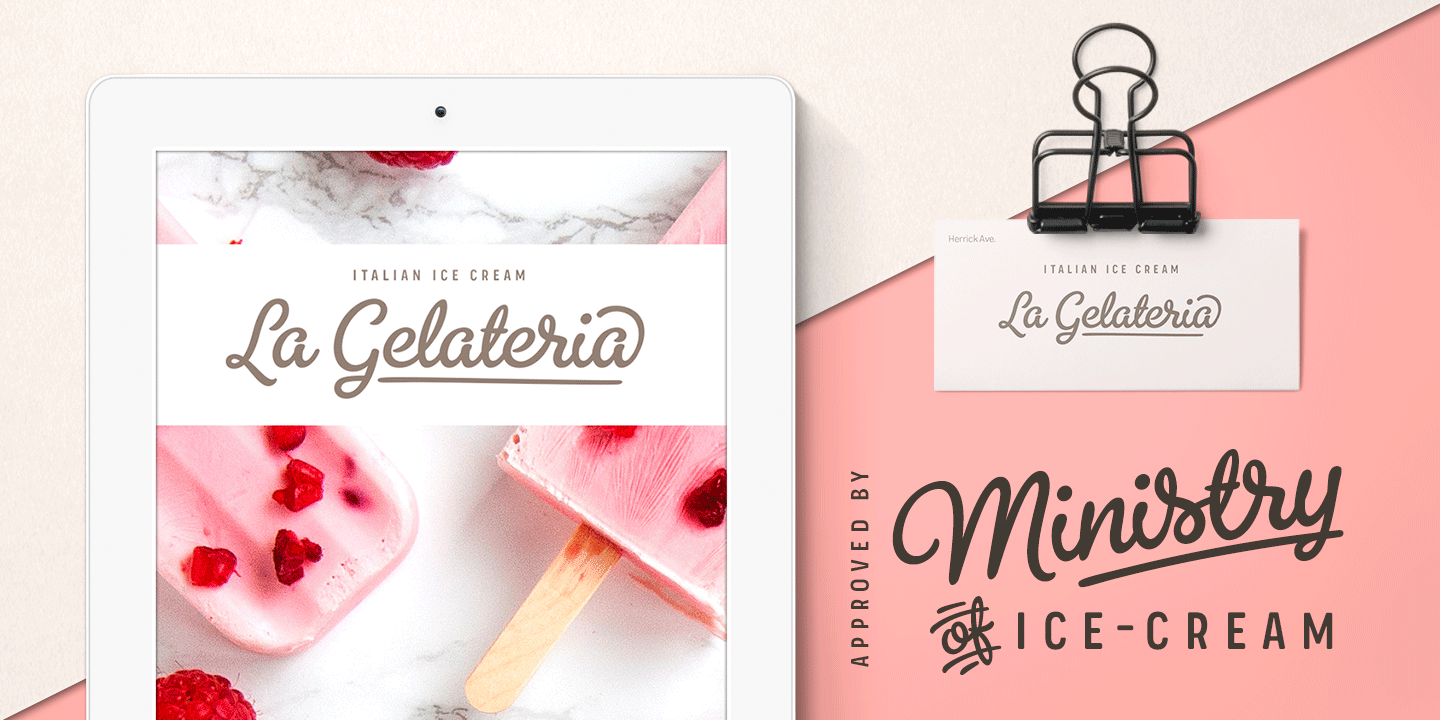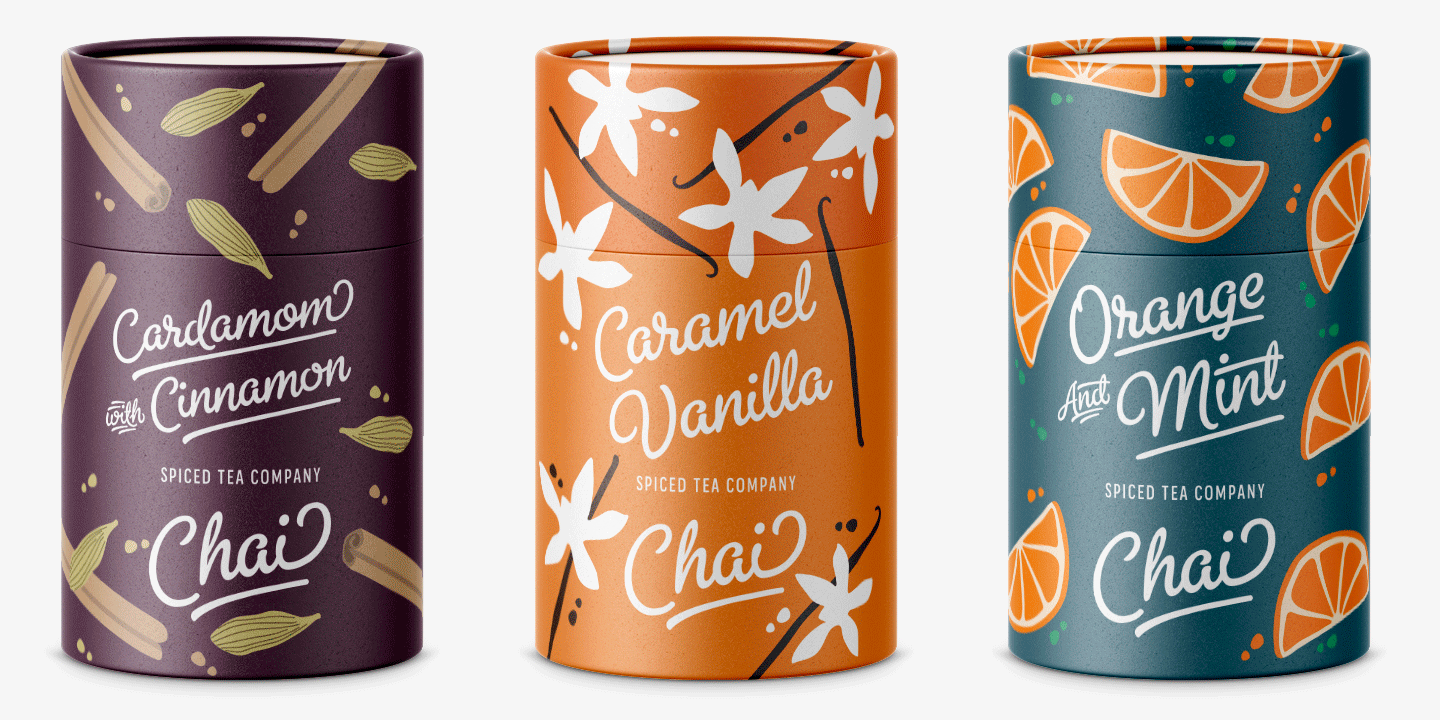
About Tricker
Tricker is a smoothly rolling connected script family of two weights. Tricker has low contrast and soft features. It sports over 700 glyphs and is packed with OpenType features: Contextual Alternates and Standard Ligatures are automatically on and that's…